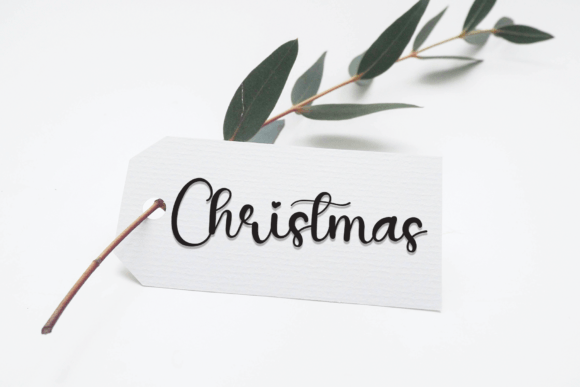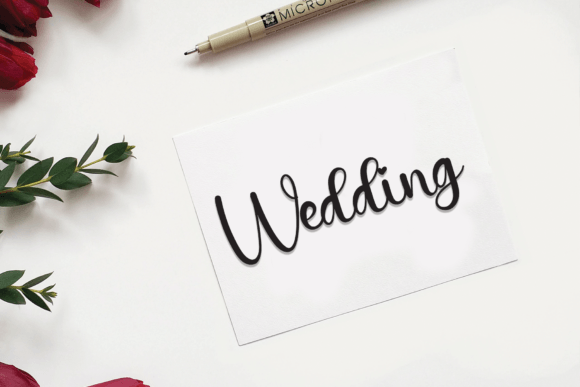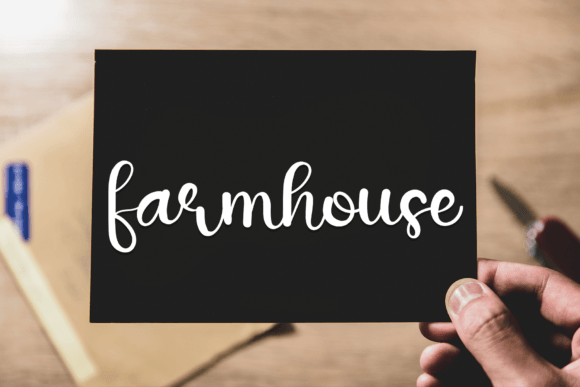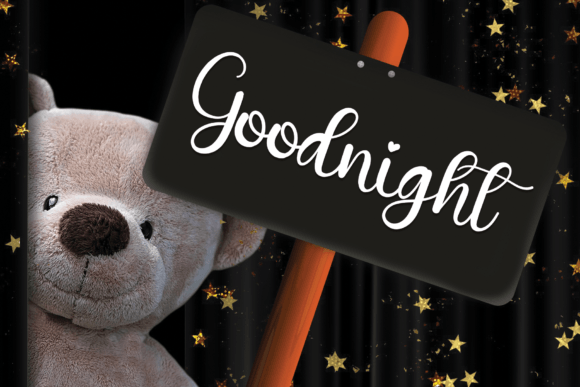
The Sweet Charm of Faucet Font: A Designer’s Delight
Have you ever been in the middle of a design project, and suddenly, you’re stuck on finding the perfect font? I recall a wedding invitation project where I struggled to find a font that conveyed the right amount of romance and playfulness. That’s when I stumbled upon Faucet Font, a sweet and smooth handwritten font that instantly won my heart! 💕
A Personal Review: What I Love About Faucet Font
Faucet Font is a beautiful, handmade font that adds a touch of warmth and personality to any design. Here are some things I love about it:
- ✨ Sweet and smooth handwritten style: Faucet Font has a lovely, cursive feel that’s perfect for creating romantic and whimsical designs.
- ✅ Cute and playful vibe: This font is ideal for designs that require a touch of playfulness, such as wedding invitations, greeting cards, or children’s party materials.
- 💕 Romantic and personal touch: Faucet Font is perfect for designs that require a romantic and personal touch, such as love letters, anniversary cards, or Valentine’s Day designs.
While Faucet Font is an excellent choice for many designs, there are a few things to keep in mind:
- 🤔 Limited use for formal designs: Due to its playful and cursive nature, Faucet Font might not be the best choice for formal designs, such as business cards or corporate branding.
- ⚠️ Legibility at small sizes: As with many script fonts, Faucet Font can become difficult to read at very small sizes. It’s best used at larger sizes, such as 18pt or larger.
The Backstory of Faucet Font
Faucet Font was designed with love and care by a talented font designer who wanted to create a font that would bring joy and happiness to designers and crafters. The designer’s inspiration came from traditional handwritten fonts, with a modern twist to make it more unique and playful.
Q: What is Faucet Font best used for?
A: Faucet Font is best used for designs that require a sweet and smooth handwritten style, such as wedding invitations, greeting cards, or children’s party materials.